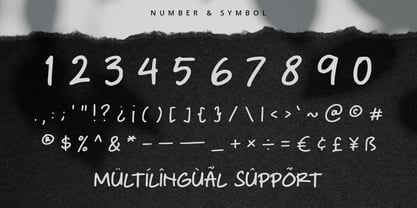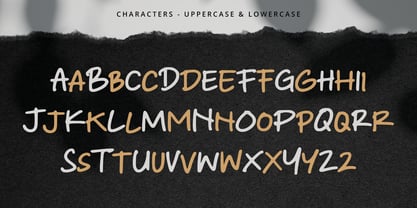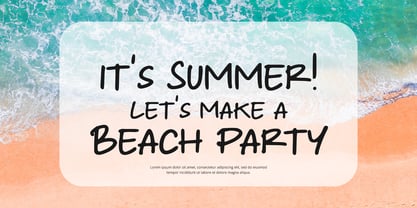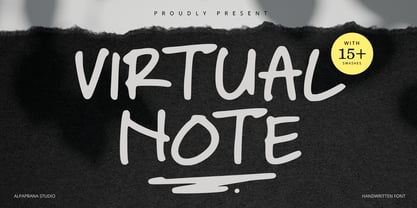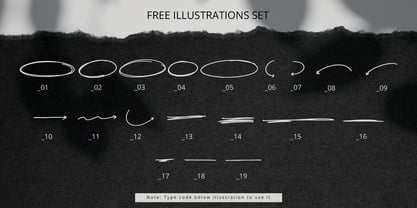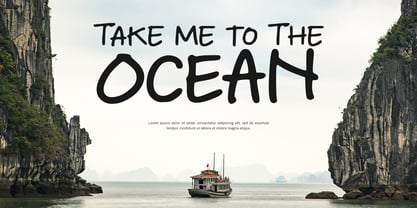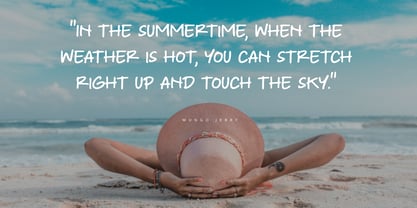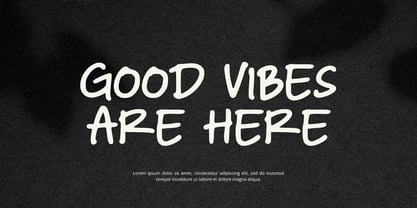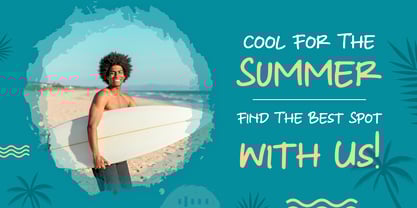
Virtual Note
by Alpaprana
The Virtual Note Font Family was designed by Nadia Salsabila and published by Alpaprana. Virtual Note contains 1 styles.
Virtual Note is a handwritten font with authentic and playful feels. It will be perfectly used for Branding, Logo Design, Lettering, Logotype, Clothing, Poster, magazine, packaging, posters, shopping bags, t-shirts, book covers, photography, special events and other design project. I hope you enjoy this font. If you have any questions please don't hesitate to drop me a message :) Best, Alpaprana